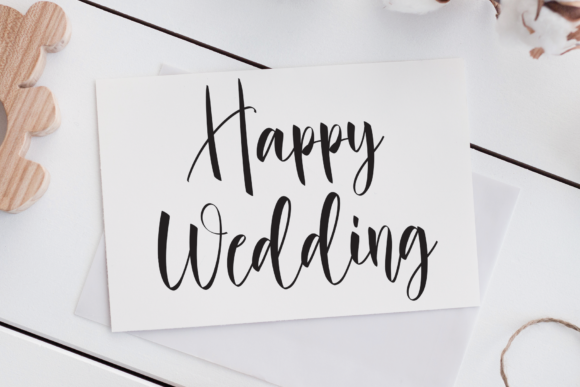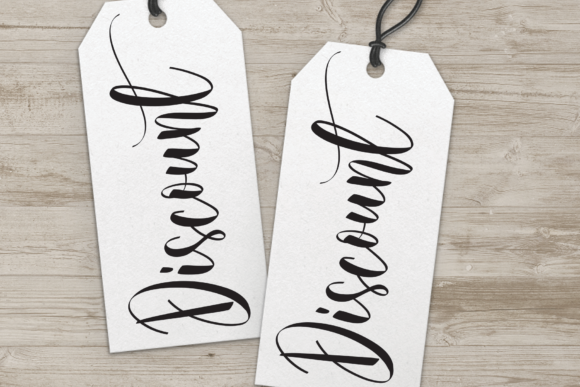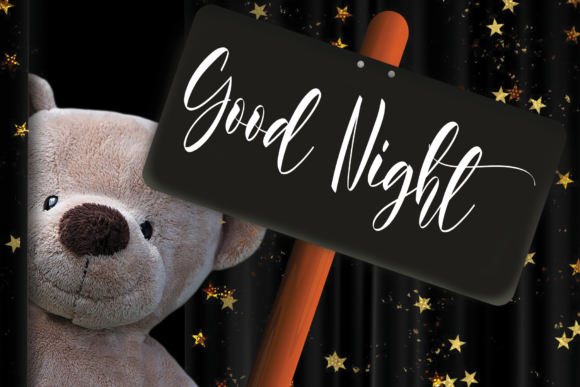
About Sweater Snow Font
Sweater Snow is a beautiful and classy handwritten font, perfect for fashion, feminine magazines, invitations, product tags, wedding cards, quotes, branding, and more.